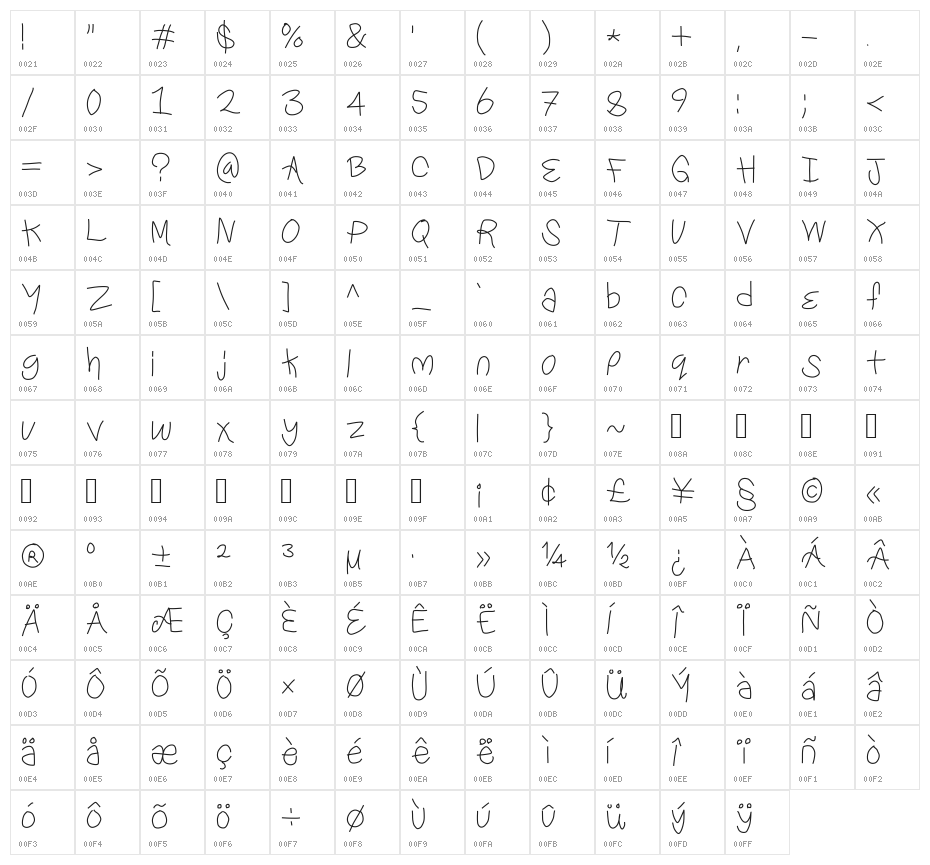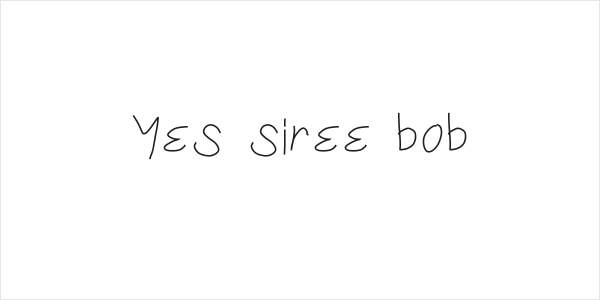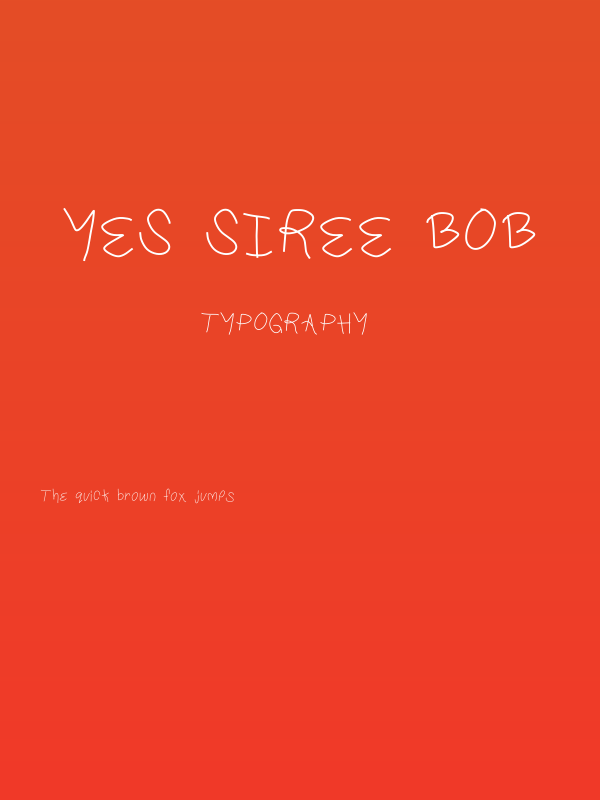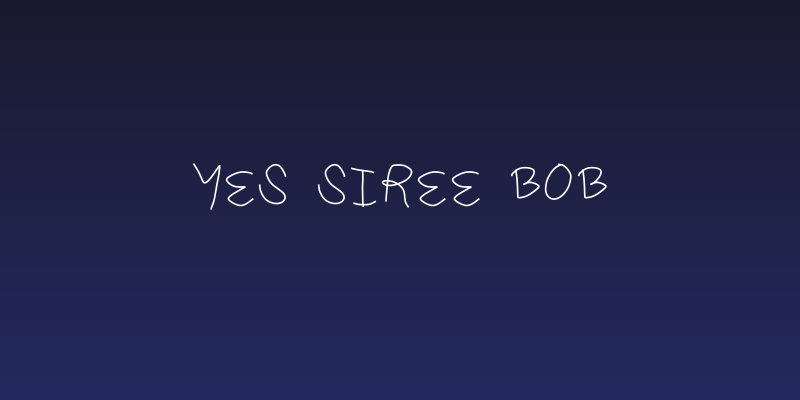
Yes siree bob Font
Yes siree bob Description
This playful and casual font features a handwritten style with a whimsical touch. The letters are slightly irregular, adding a sense of spontaneity and charm. The strokes are thin and consistent, giving it a light and airy feel. The uppercase and lowercase letters maintain a cohesive look, while the numbers and special characters complement the overall style. The font's informal nature makes it ideal for projects that require a personal and friendly tone.